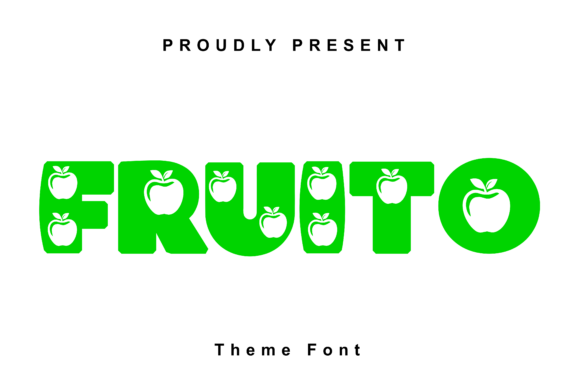
Introduction to Fruito Font
Fruito is a bold and cheerful theme font filled with fruity apple icons inside every letter.
With its vibrant and lively design, Fruito is perfect for healthy food branding, organic packaging, farmer’s markets, and kids’ product designs .
Key Features of Fruito Font